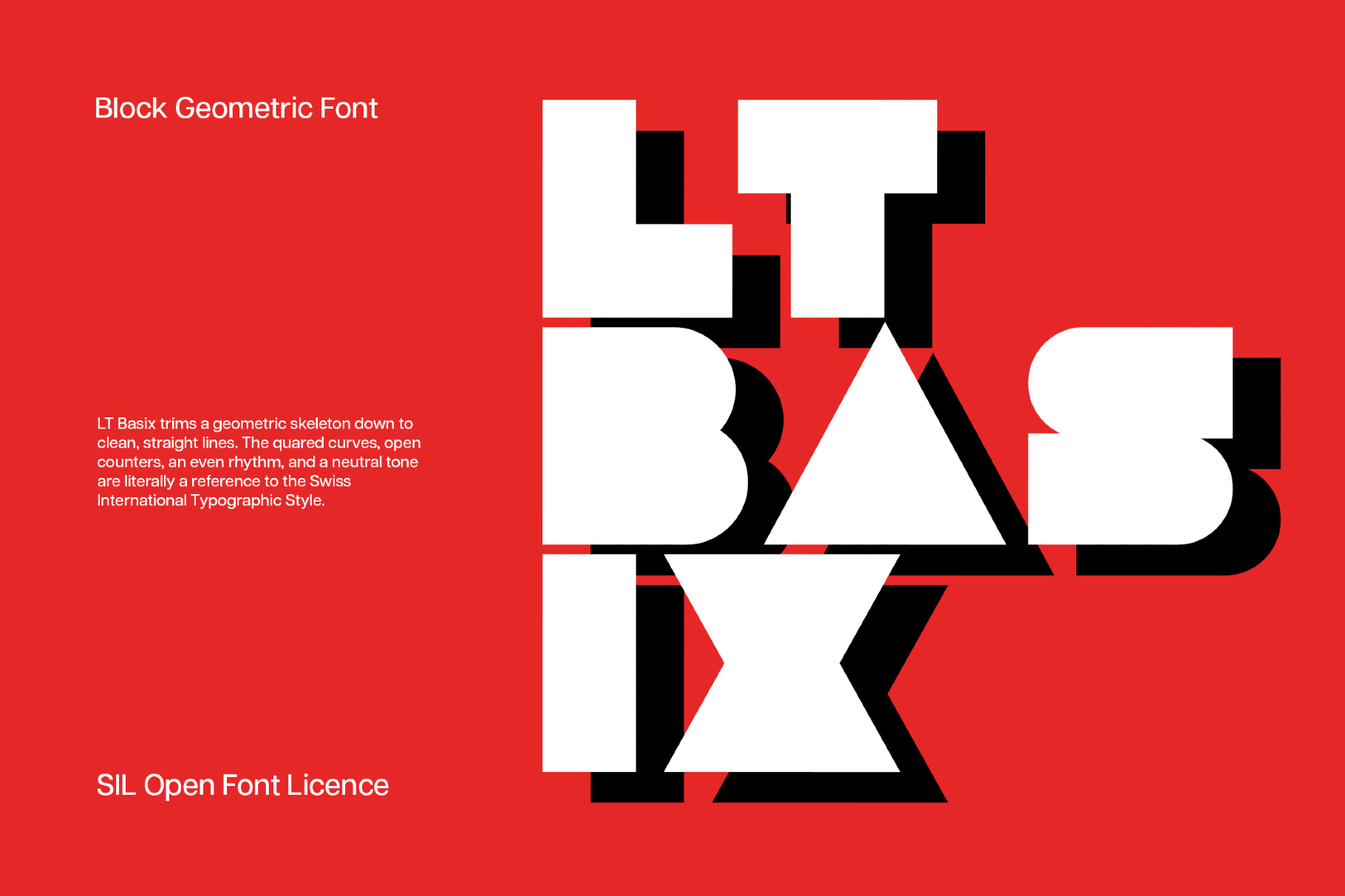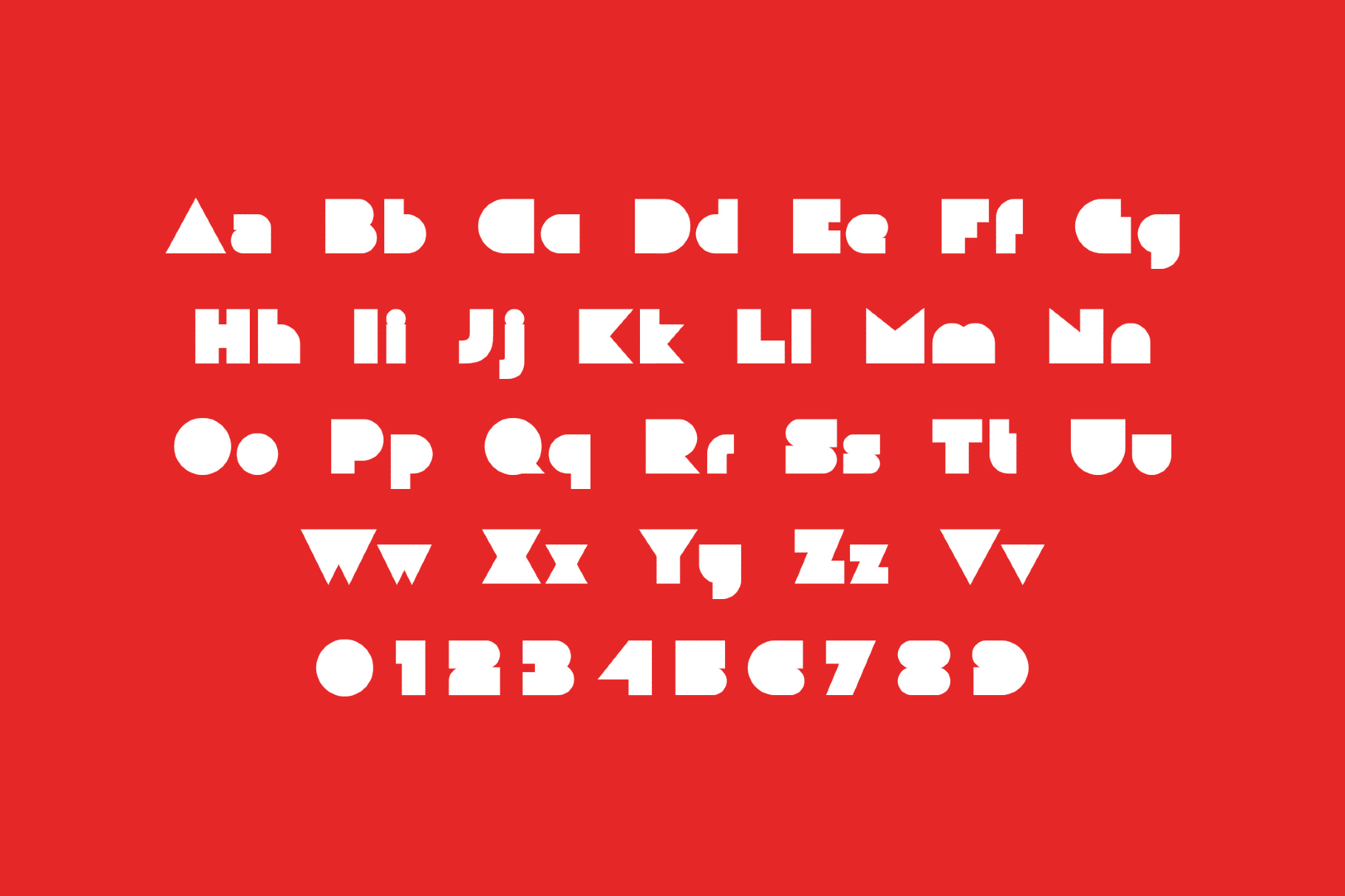
LT Basix Font
LT Basix trims a geometric skeleton down to clean, straight lines. The quared curves, open counters, an even rhythm, and a neutral tone are literally a reference to the Swiss International Typographic Style. Such a clean, no-nonsense poster font works well for app and web interfaces, dashboard headings, brand and identity systems, UI and app design, web hero sections, packaging copy, editorial layouts, and presentation decks.
- Numbers, punctuation, dingbats, and symbols.
- Multilingual support across basic Latin scripts.
- Ligatures.